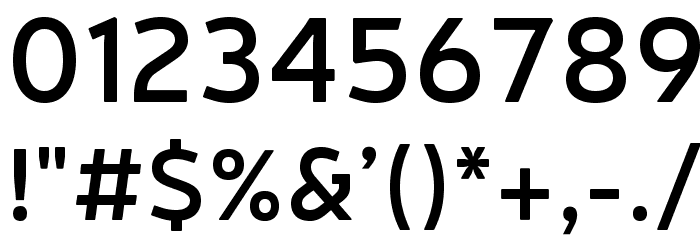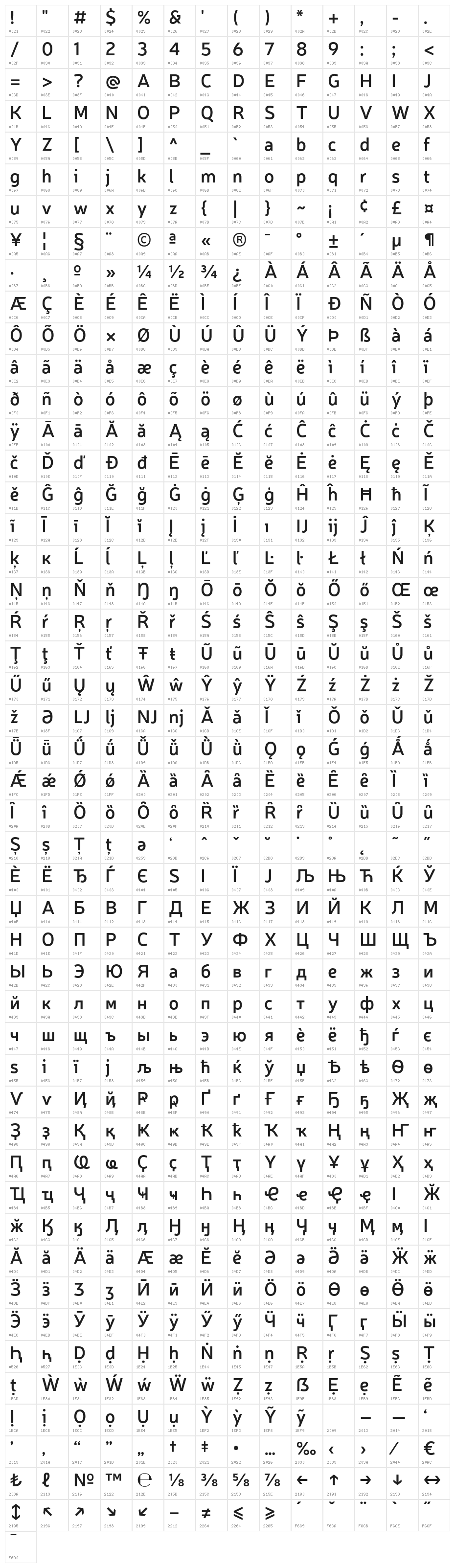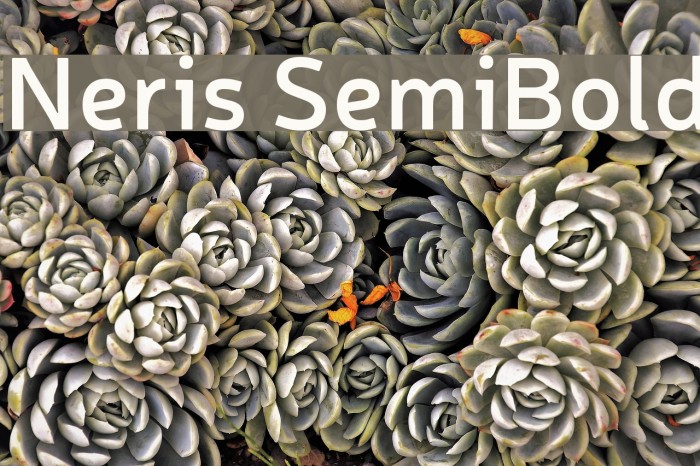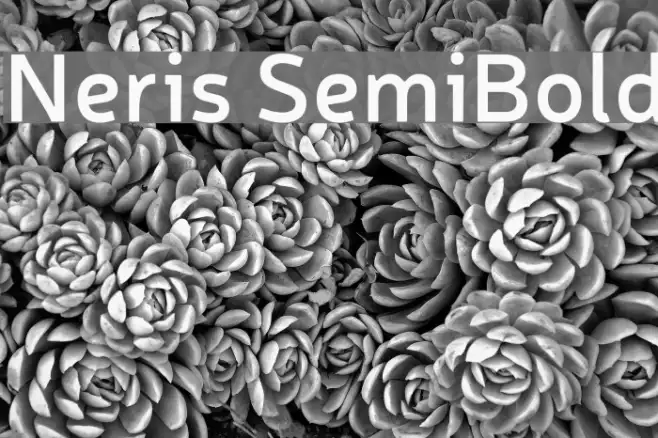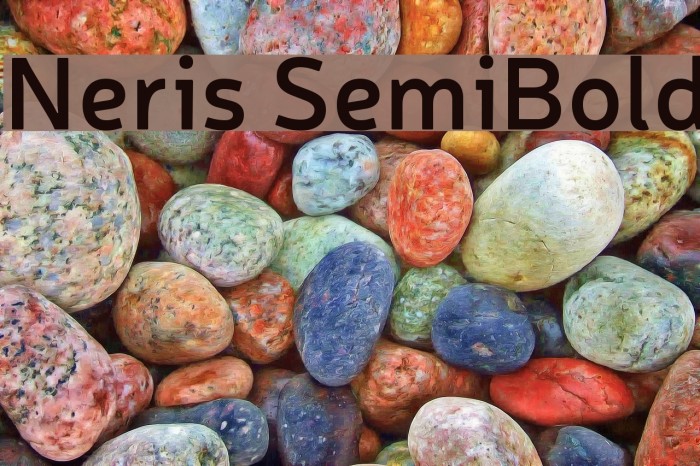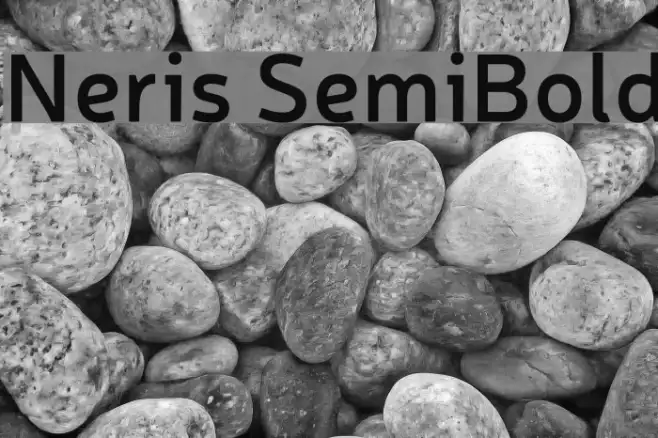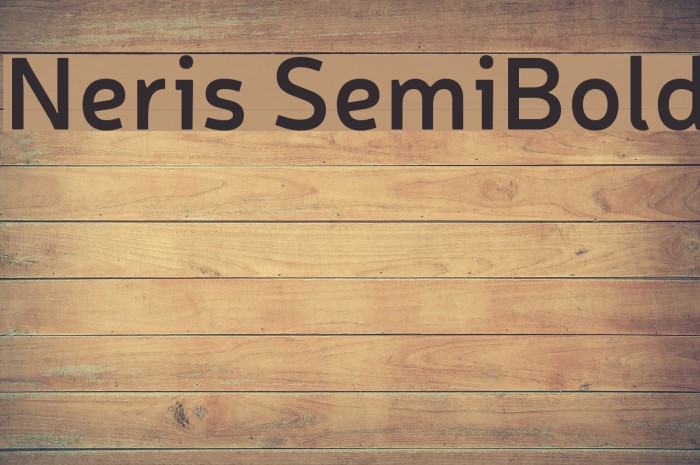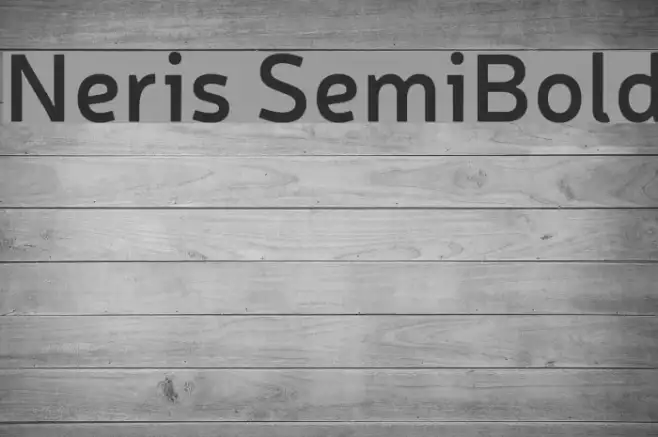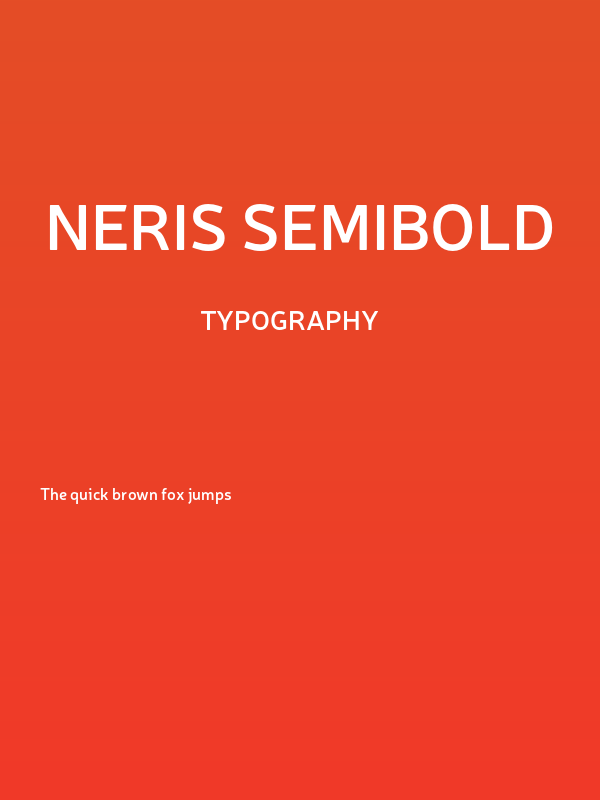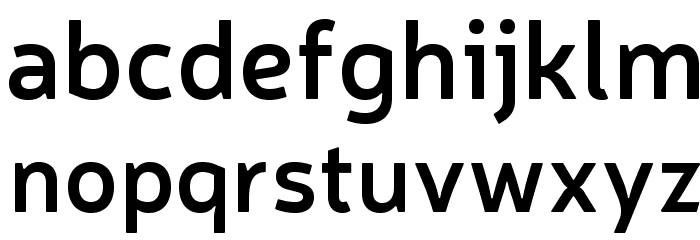
Neris SemiBold Font
Neris SemiBold Description
This typeface features a clean and modern sans-serif design, characterized by its semi-bold weight that provides a strong presence without being overpowering. The letters are well-proportioned with a consistent stroke width, offering a harmonious and balanced appearance. The uppercase and lowercase letters are distinct, with rounded edges that soften the overall look, making it approachable and versatile. The numerals are clear and legible, suitable for both digital and print media. Special characters are included, maintaining the font's cohesive style. Its simplicity and clarity make it ideal for a wide range of applications.